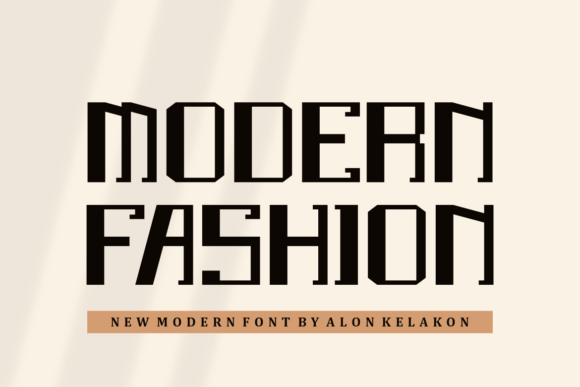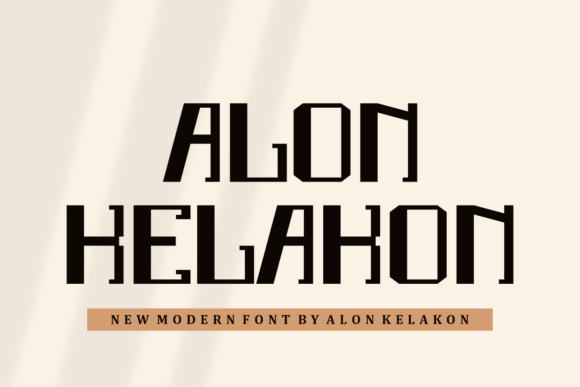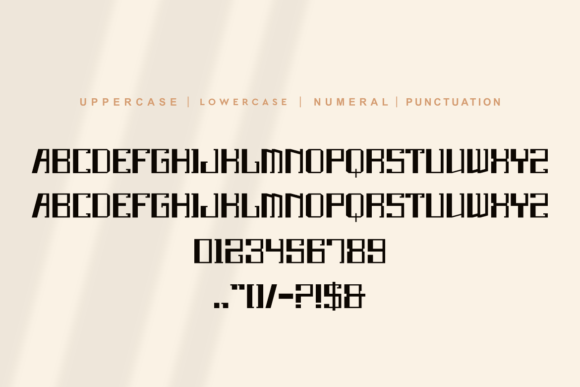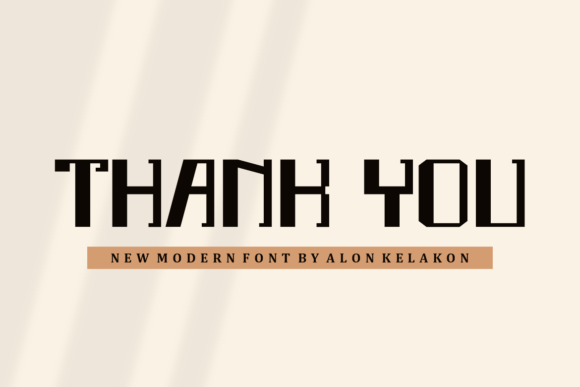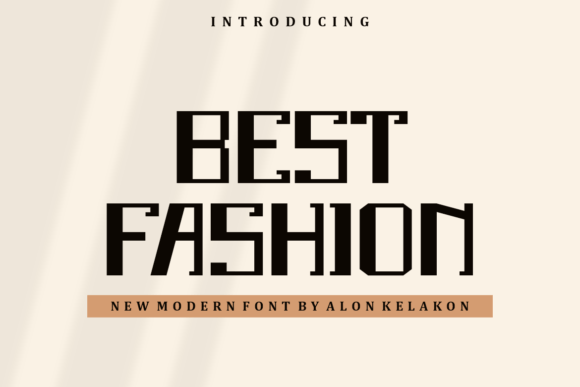
The Ultimate Guide to Best Fashion Font: Elevate Your Designs with Style
I’ll never forget the time I was working on a fashion brand’s logo design, and I just couldn’t seem to find the perfect font. The client wanted something modern, sleek, and stylish, but everything I tried looked either too bland or too over-the-top. That’s when I stumbled upon the Best Fashion font, and it instantly became my go-to. In this article, I’ll share my love for this amazing display font, its features, and how to make the most of it in your designs.
An Honest Review of Best Fashion Font
So, what makes Best Fashion font so special? Let’s dive into the good stuff and a few quirks I’ve noticed.
- ✨ Modern and sleek design: Best Fashion font is perfect for fashion brands, beauty blogs, and lifestyle websites that need a fresh and contemporary look.
- ✅ Highly versatile: This font can be used for headings, titles, and even short paragraphs, making it a great addition to any design project.
- 💡 Excellent for branding: The unique and stylish design of Best Fashion font makes it perfect for creating memorable brand identities.
- 🤔 Limited use in body text: While Best Fashion font is amazing for headings and titles, it might not be the best choice for longer body text due to its display nature.
- ⚠️ Requires careful kerning: As with any font, kerning is crucial to ensure the text looks professional and visually appealing.
The Story Behind Best Fashion Font
Best Fashion font was designed with the goal of creating a modern and stylish display font that would cater to the fashion and lifestyle industries. The designer aimed to craft a font that would be both elegant and bold, making it perfect for headlines, titles, and branding.
| Font Name | Best Fashion Font |
| Author | alonkelakon |
Q: What is the best use case for Best Fashion font?
A: Best Fashion font is ideal for fashion brands, beauty blogs, lifestyle websites, and any project that requires a modern and stylish look.
Q: Can I use Best Fashion font for body text?
A: While Best Fashion font can be used for short paragraphs, it’s primarily designed for headings and titles. For longer body text, consider using a more readable font.
Q: Is Best Fashion font suitable for logos and branding?
A: Absolutely! Best Fashion font’s unique and stylish design makes it perfect for creating memorable brand identities and logos.